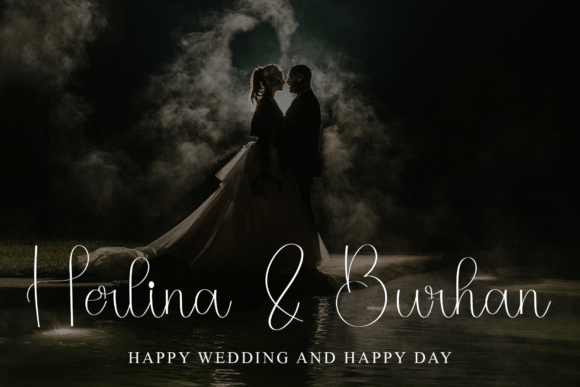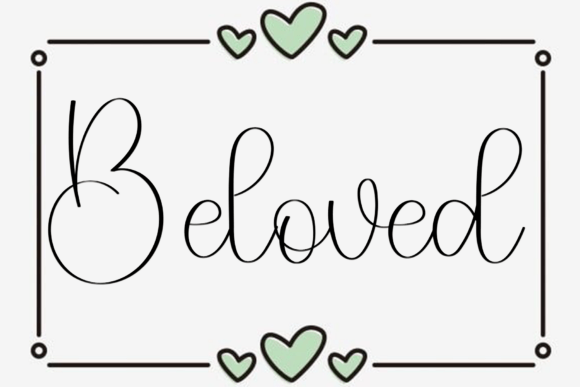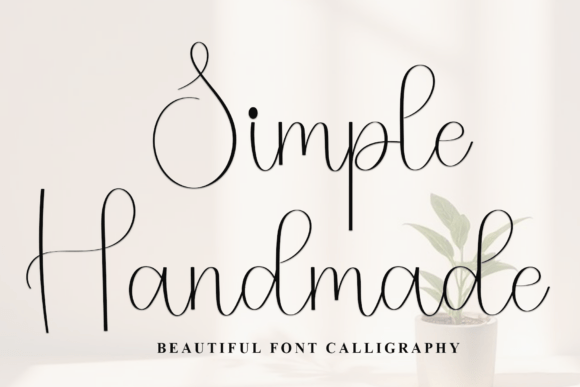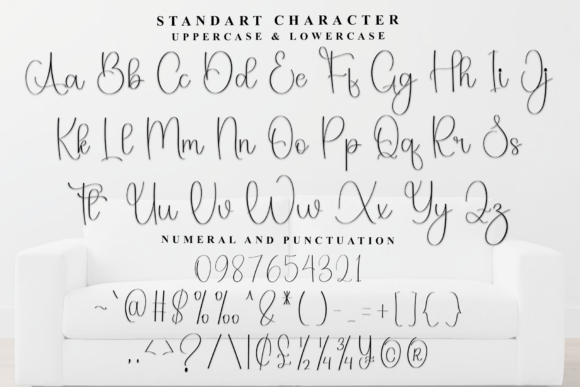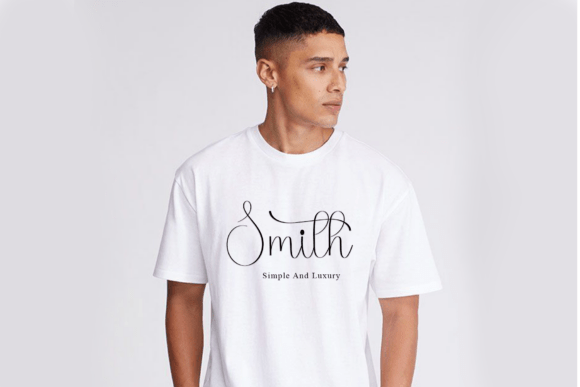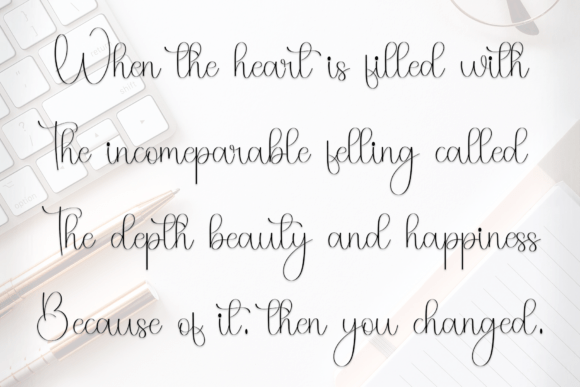
Unleash the Elegance: Discover the Beauty of Beautiful California Font
Have you ever sat at your desk, pen in hand, staring at a blank page, waiting for inspiration to strike? For designers, this moment is all too familiar. But what if you had the perfect tool to bring your vision to life? Enter the Beautiful California Font, a stunning script font that adds a touch of sophistication to every word.
This elegant font is designed to elevate your designs, whether it’s a wedding invitation, a brand logo, or a social media post. Its fluid strokes and gracious swashes create a sense of luxury and romance, making your text feel personal and high-end. For designers, the Beautiful California Font is a valuable asset, offering a unique blend of modern calligraphy and classic charm that’s sure to impress.
Beautiful California Font Key Features
- Unique Characteristics: The Beautiful California Font features a unique blend of modern and vintage elements, with elegant lines, subtle flair, and a touch of sophistication.
Beautiful California Font Review
Overall, I think the Beautiful California Font is a solid choice for designers looking for a friendly and approachable font. It’s perfect for creating a laid-back and inviting atmosphere in your designs. ✨
- It’s highly legible, making it perfect for body text.
- The font is incredibly versatile and can be used for a wide range of projects, from brochures to websites.
- The font’s friendly feel makes it perfect for creating a welcoming atmosphere.
- The font may not be the best choice for projects that require a more formal or professional tone.
- The font’s friendly feel can sometimes make it feel a bit too casual or playful.
- The font may not be as effective at conveying complex or technical information.
- Signage and branding
- Food and drink menus
- California-themed designs
- Beach and coastal designs
- West Coast-inspired branding
Overall, I think the Beautiful California Font is a great choice for designers who want to create a friendly and inviting atmosphere in their designs. While it may not be the best choice for every project, it’s definitely worth considering for the right type of design. ✨
To get the most out of the Beautiful California Font, try using it for:
The Beautiful California Font is commonly used for:
Alternatives to Beautiful California Font
Great Vibes is a modern calligraphic script font that is perfect for creating a sense of elegance and sophistication. It’s ideal for use in branding, advertising, and editorial design. Great Vibes is more versatile than Beautiful California Font, with a wider range of font styles and weights available.
Alex Brush is a beautiful, handwritten script font that is perfect for adding a touch of whimsy and personality to your design. It’s ideal for use in packaging, invitations, and other design projects where a more casual, handwritten feel is desired. Alex Brush is similar to Beautiful California Font in its elegant, flowing lines, but has a more subtle and understated feel.
Pacifico is a beautiful, modern script font that is perfect for creating a sense of relaxation and calm. It’s ideal for use in branding, advertising, and editorial design, particularly in industries such as wellness and travel. Pacifico is more casual and laid-back than Beautiful California Font, with a more open and airy feel.
Carolyna Pro is a beautiful, elegant script font that is perfect for creating a sense of sophistication and refinement. It’s ideal for use in branding, advertising, and editorial design, particularly in industries such as fashion and luxury goods. Carolyna Pro is similar to Beautiful California Font in its elegant, flowing lines, but has a more refined and polished feel.